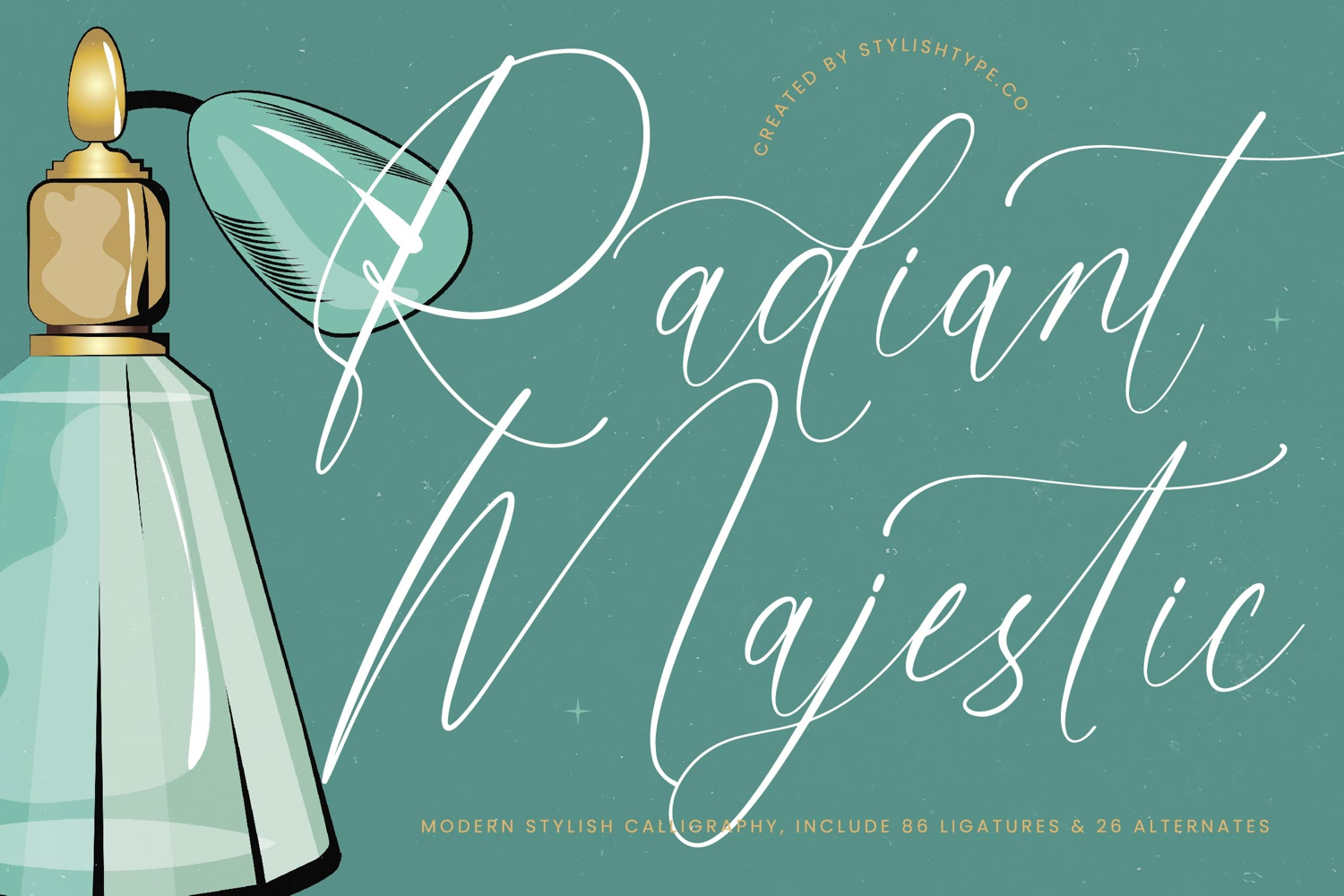
Radiant Majestic - Modern Stylish Calligraphy
Radiant Majestic Italic
Radiant Majestic
Create iconic brand identities that resonate with sophistication and grace. Radiant Majestic - Modern Stylish Calligraphy is perfect for luxury branding, high-end perfume packaging, exclusive wedding invitations, sophisticated editorial layouts, and fashion advertisements. Invest in this typeface to ensure your visual communications are always synonymous with premium quality and refined, stylish design, captivating your audience with its inherent grace and dramatic flair.